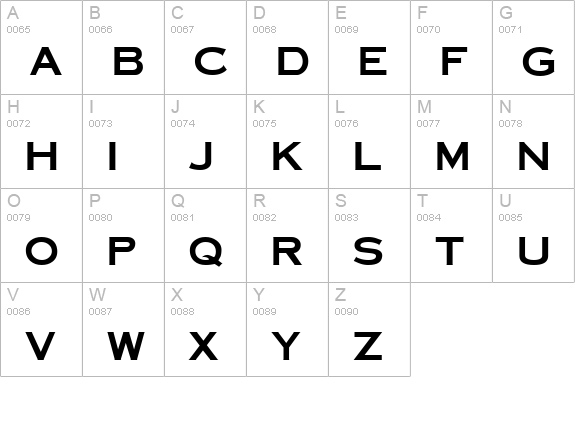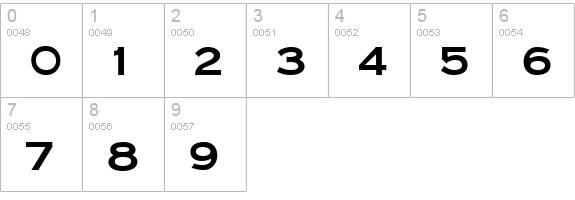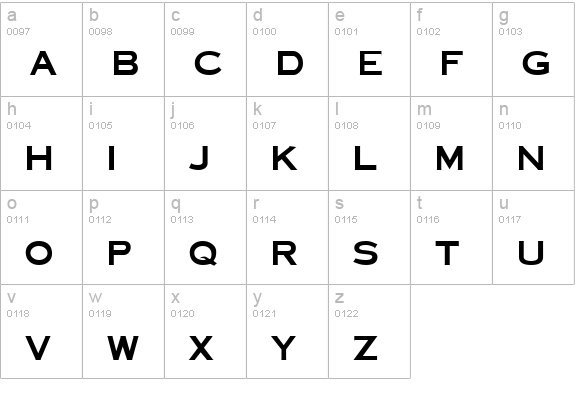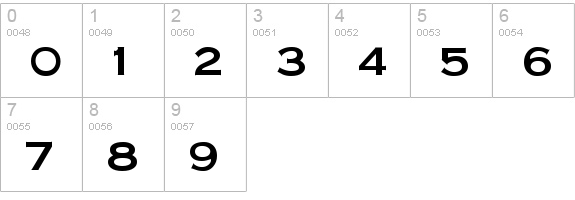
Cornerstone Regular Font Details
Cornerstone Regular is the standard, neutral variant in the Cornerstone typeface family \xE2\x80\x94 well suited to general body text, paragraphs, and standard typographic work.
Cornerstone Regular is a modern and elegant font that exudes sophistication and professionalism. With its clean lines and classic design, this typeface is perfect for a wide range of projects, from branding and advertising to editorial and web design. The versatility of Cornerstone Regular makes it a must-have for any designer looking to elevate their work with a touch of timeless style. Best of all, Cornerstone Regular is available for free download at FontsMarket.com. Don't miss out on the opportunity to add this stunning font to your collection without spending a dime. Download it today and take your designs to the next level with the beauty and grace of Cornerstone Regular.